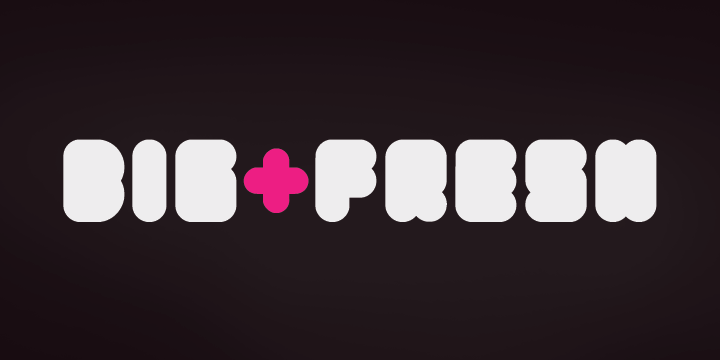
• Yuki™
Yuki was born out of the design of BAQ Rounded a buzzed-about type release in 2007/2008.
Yuki takes on a more serious feel and with a more compressed design it’s perfect for super tight kerning.
Yuki also features a heavy weight, and also a 2 lined weights perfect for mixing things up!